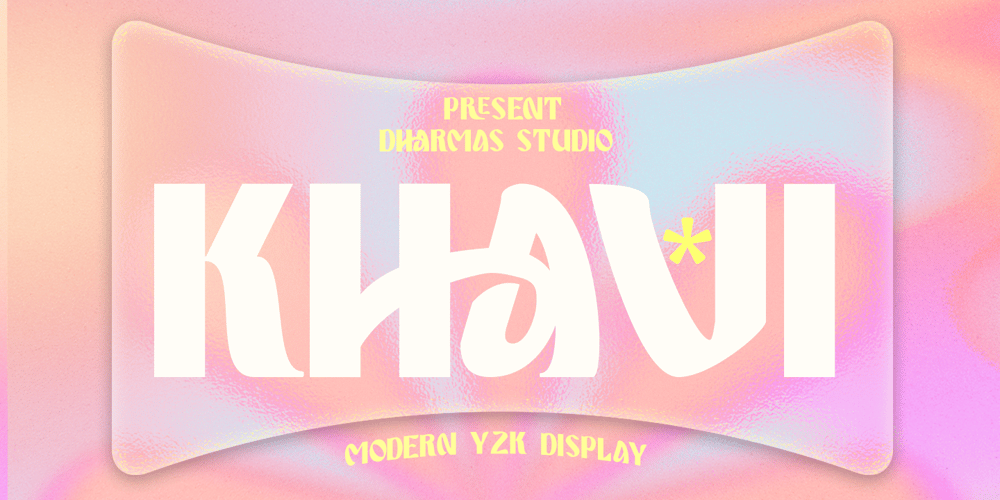
Khavi Font Family was designed by Sagara Nararya and published by Pandeka Studio. Khavi contains 2 styles and family package options. Introducing Khavi, a vibrant and stylish sans display font that brings the essence of the y2k era to life.With its sleek lines and captivating gradient covers, Khavi is the perfect choice for your next creative venture. Whether you’re designing a magazine spread, a catchy poster, or inspiring quotes, this versatile font will add a touch of modernity and nostalgia to your projects.Features: Khavi Main Files Instructions ( Access special characters, even in Cricut Design ) Have alternate with all characters (Uppercase & Lowercase) Regular and Clean version Unique letterforms Works on PC & Mac Simple Installations Accessible in Adobe Illustrator, Adobe Photoshop, Microsoft Word even work on Canva! PUA Encoded Characters Fully accessible without additional design software. Enjoy Designing!Pandeka Studio